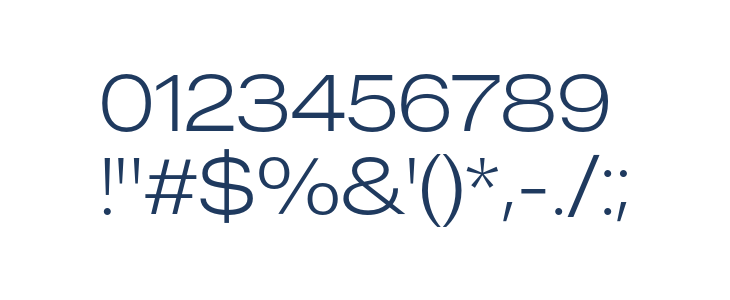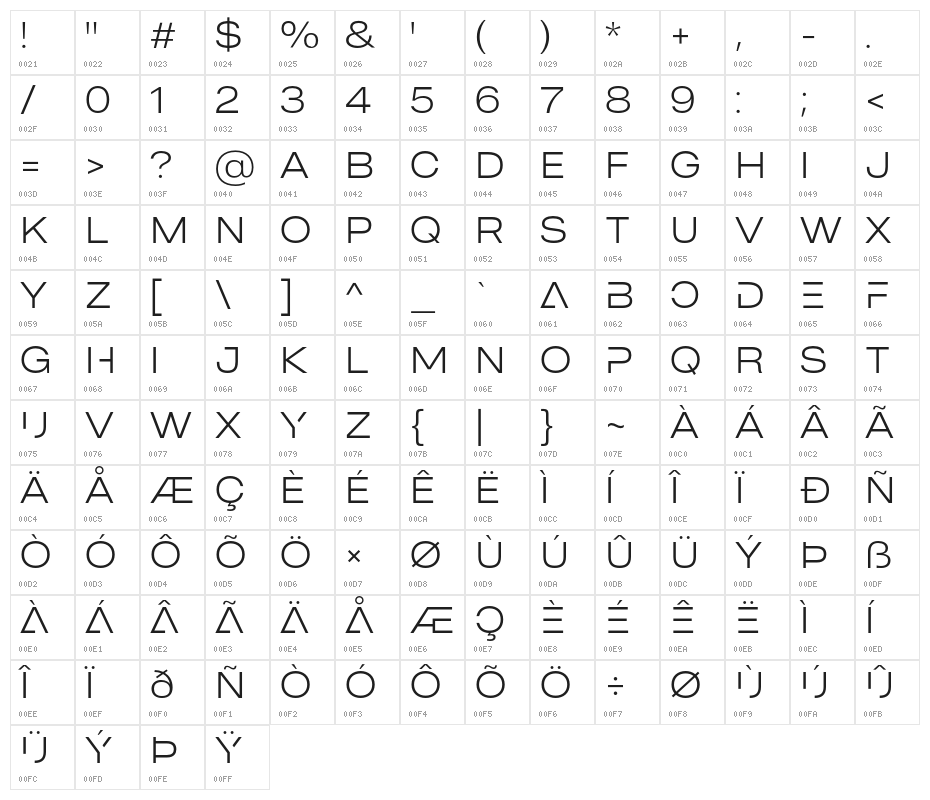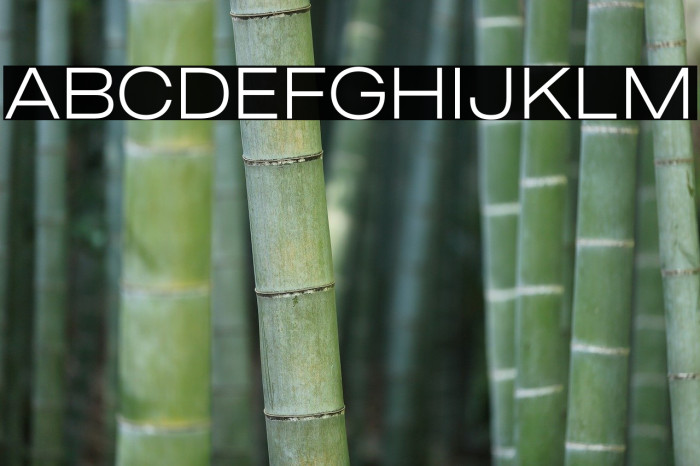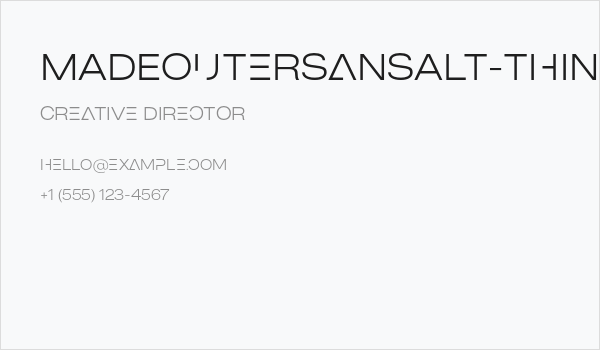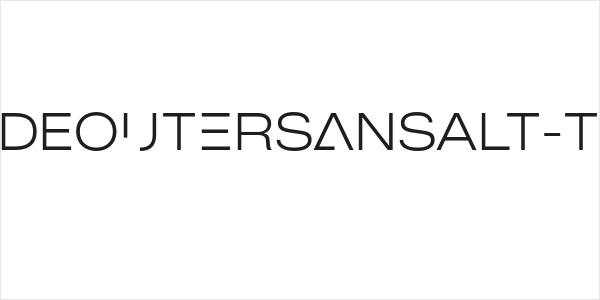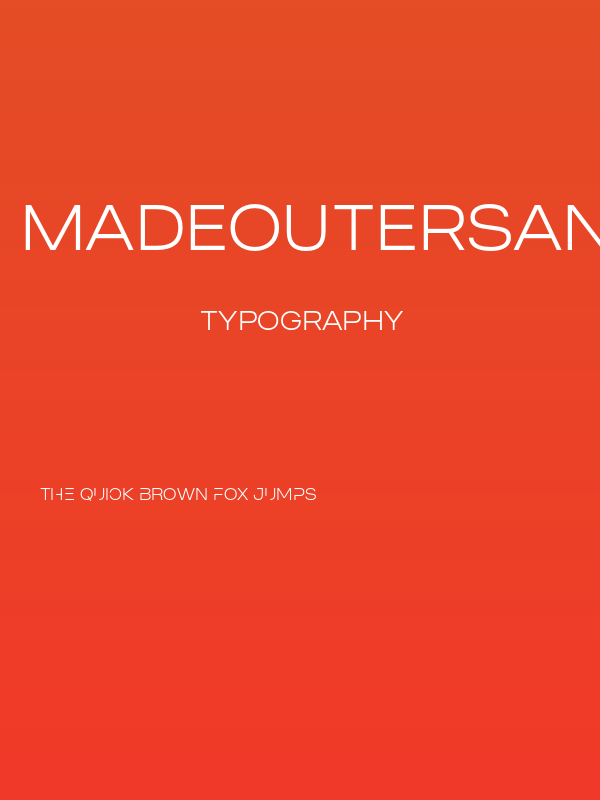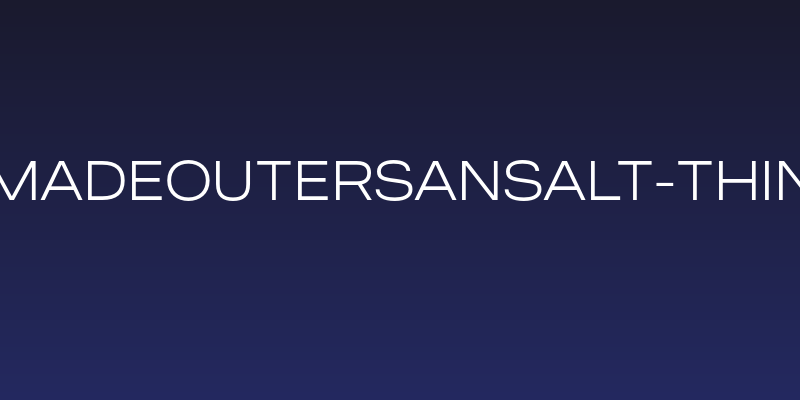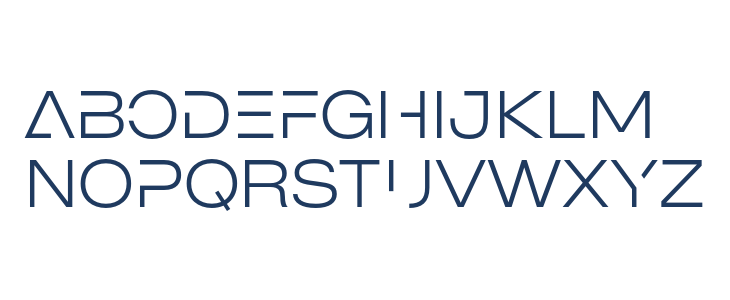
MADEOuterSansAlt-Thin Font
MADEOuterSansAlt-Thin Description
This font features a clean, geometric sans-serif style with a modern aesthetic. The characters are thin and evenly spaced, providing a sleek and minimalist appearance. The uppercase letters are uniform in height, while the lowercase letters maintain a consistent baseline, enhancing readability. The numerals are proportional, aligning well with the overall design. Special characters are distinct and maintain the same thin weight, ensuring consistency across all glyphs. This font's simplicity and clarity make it suitable for a variety of design applications.